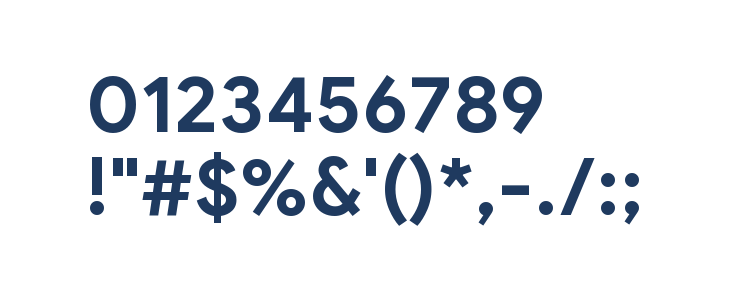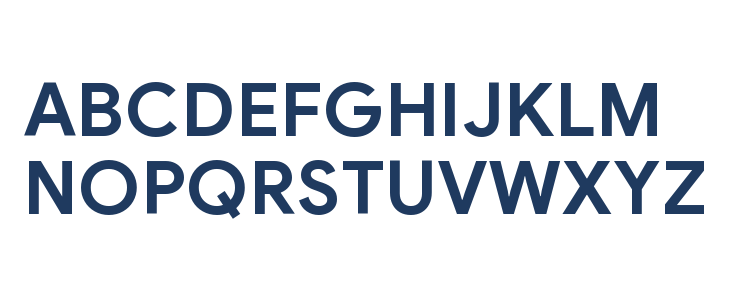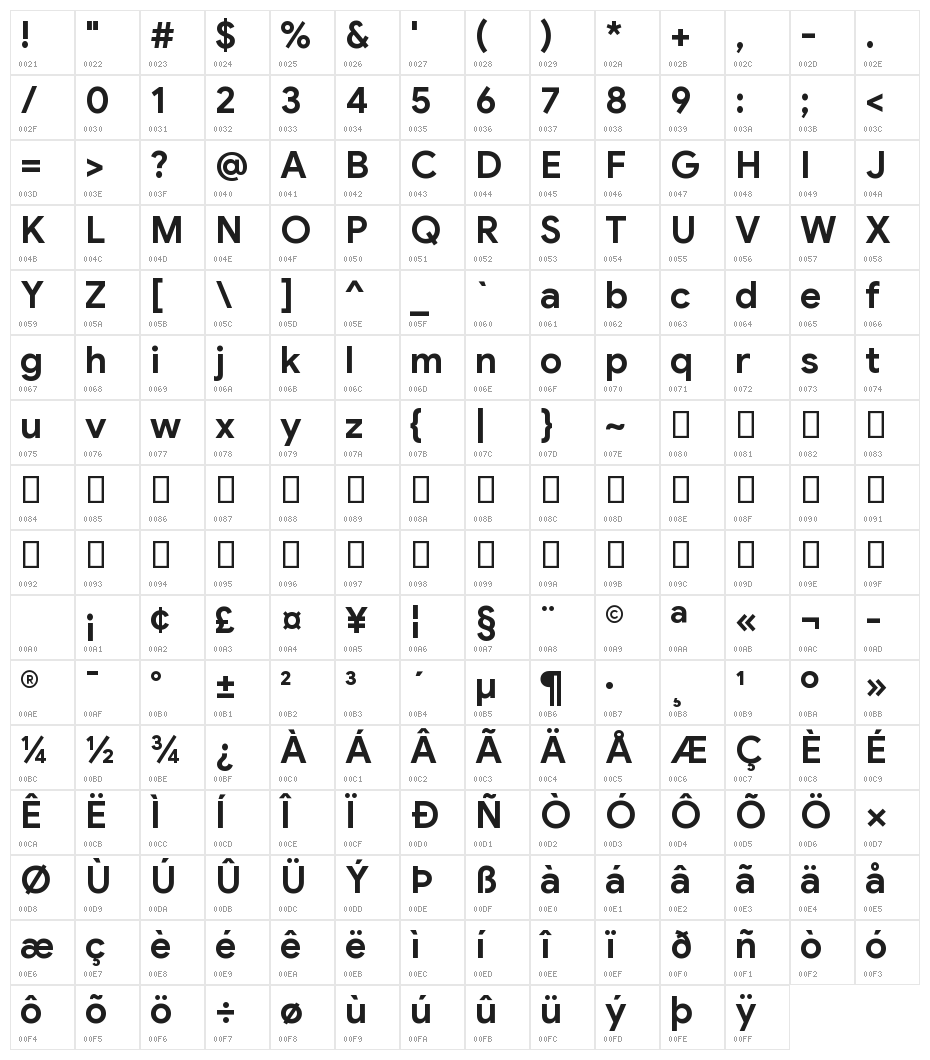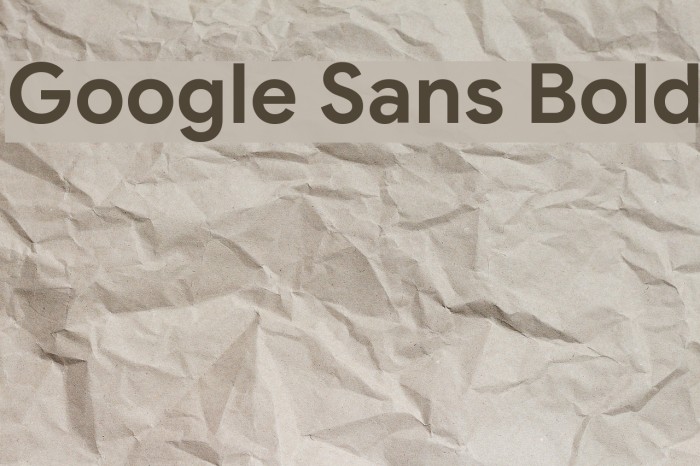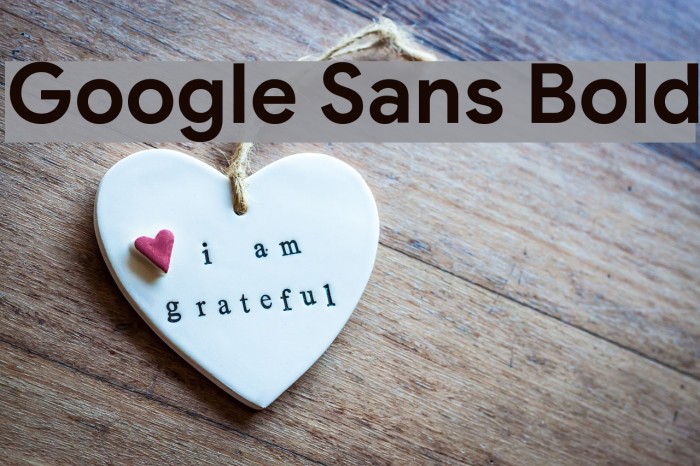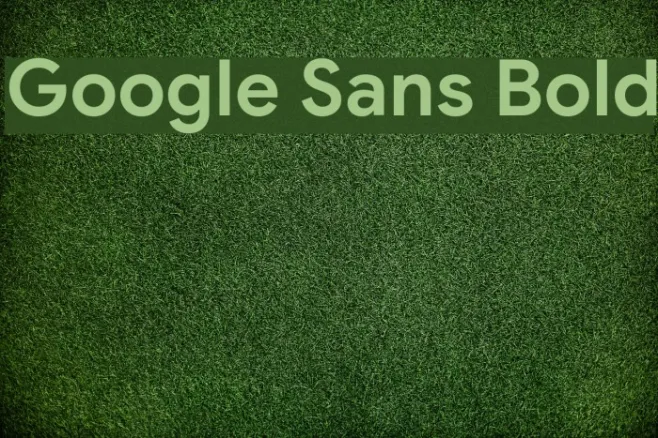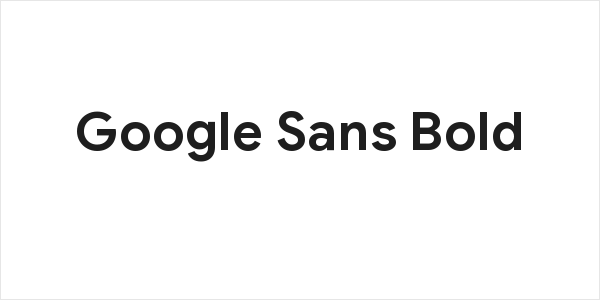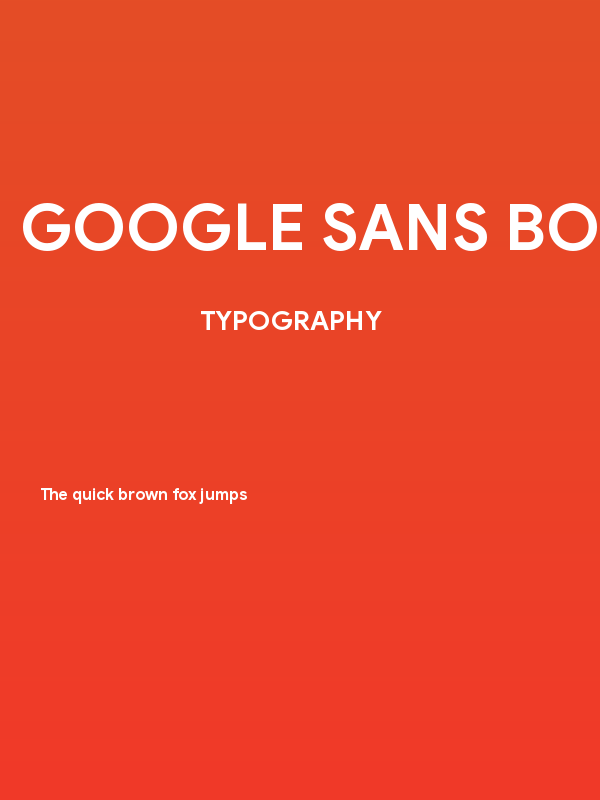
Google Sans Bold Font
Google Sans Bold Description
This font features a clean and modern sans-serif design, characterized by its bold weight and geometric shapes. The letters are evenly spaced with a consistent stroke width, providing a balanced and harmonious appearance. The uppercase letters are slightly taller than the lowercase, offering a clear distinction between the two. The numerals are proportionate and align well with the overall style, making them easy to read. Special characters are designed with the same attention to detail, ensuring they integrate seamlessly with the rest of the font. This font's simplicity and clarity make it highly versatile for various design applications.
| Proposed Projects | Ideal for branding, digital interfaces, advertising, and editorial design. |